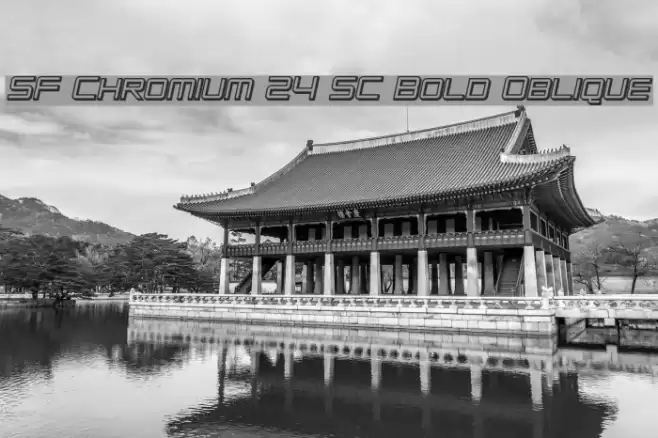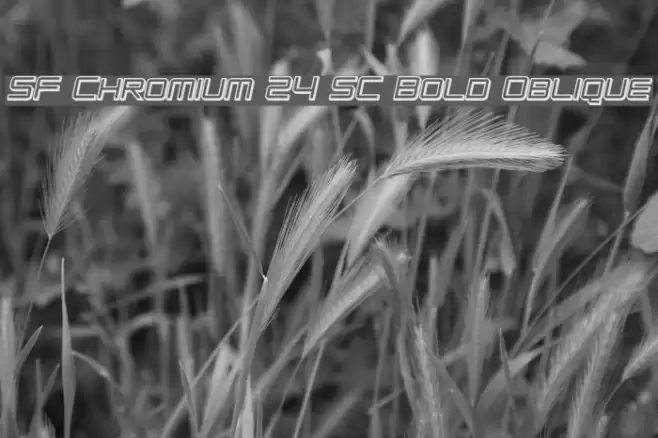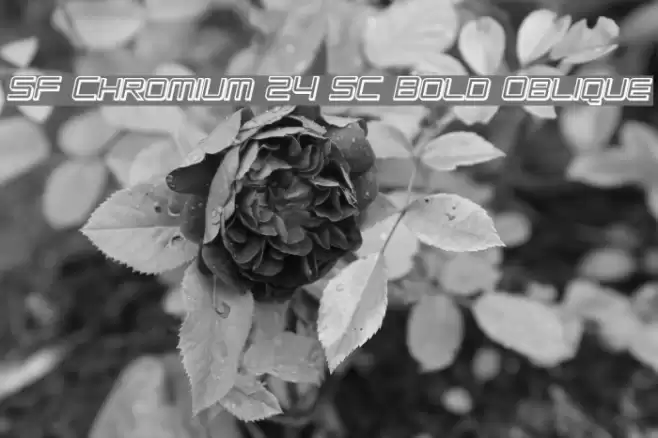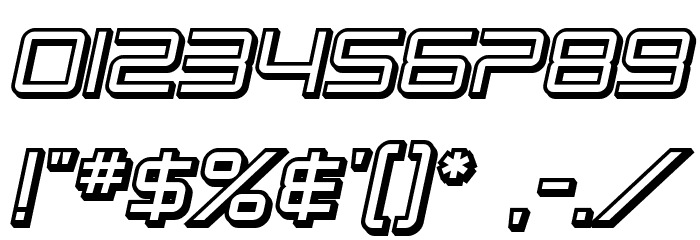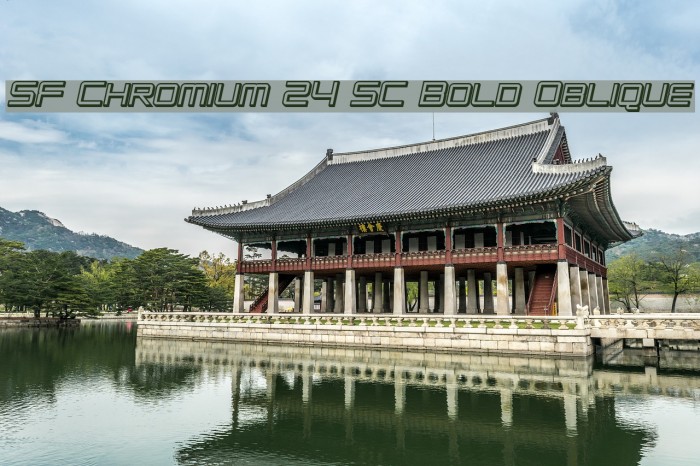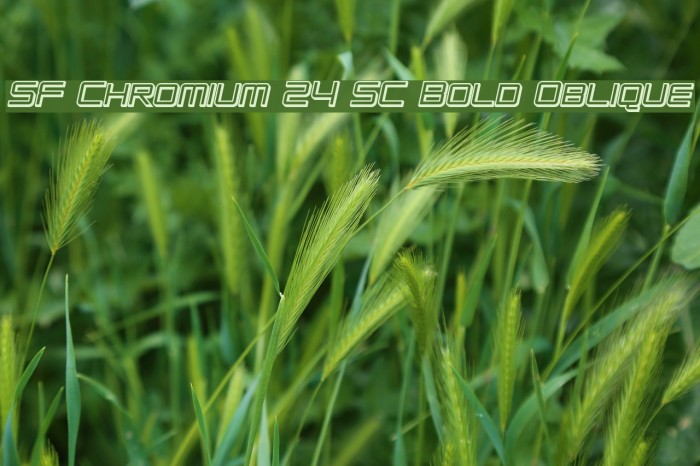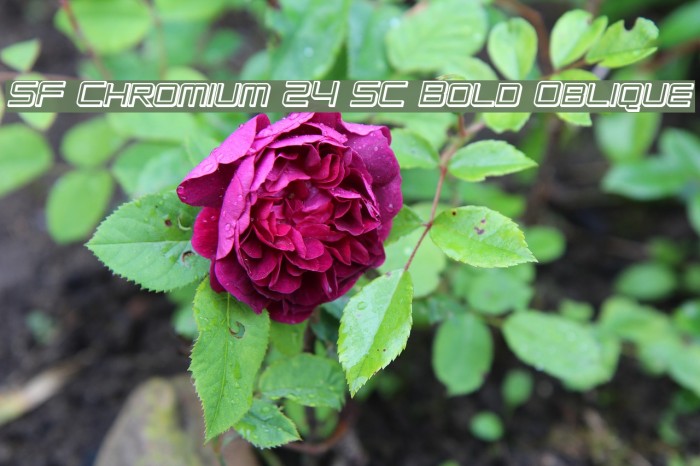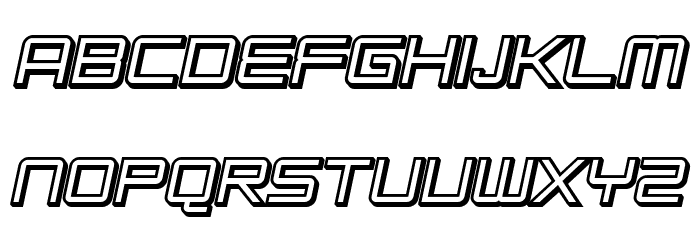
SF Chromium 24 SC Bold Oblique Font
SF Chromium 24 SC Bold Oblique Description
This font features a bold and oblique style with a futuristic and geometric design. The characters are outlined, creating a hollow effect that adds depth and dimension. The uppercase and lowercase letters maintain a consistent structure, with sharp angles and clean lines that convey a sense of modernity and precision. The numerals are equally stylized, ensuring uniformity across all characters. Special characters are included, matching the overall aesthetic with their angular and outlined forms. This font is ideal for projects that require a strong, contemporary look.
A bold, oblique, and futuristic outlined font with geometric precision from 3D fonts.
- Proposed Projects: Ideal for technology branding, sci-fi themed designs, video game interfaces, and modern advertising.